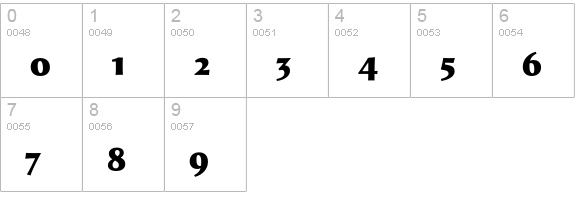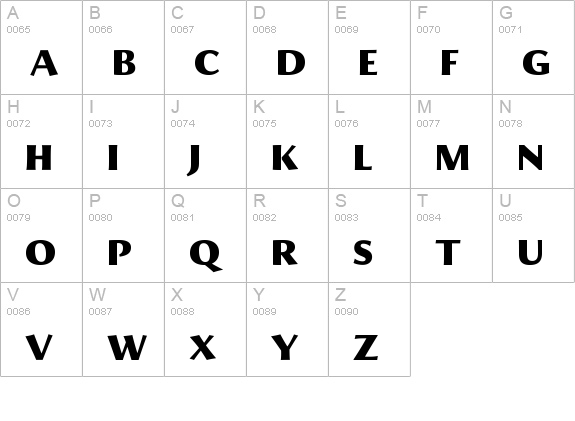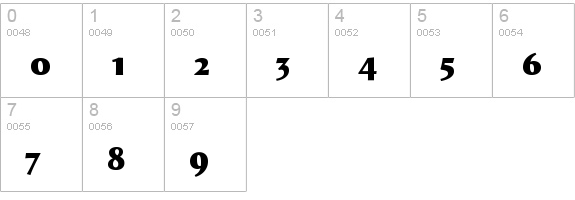
ShellSansExpert-Black Font Details
ShellSansExpert-Black is a maximum-weight, dramatic variant in the ShellSansExpert typeface family \xE2\x80\x94 well suited to maximum-impact headlines, posters, and packaging.
ShellSansExpert-Black is a stunning and versatile font that exudes confidence and sophistication. Its bold and powerful letterforms are perfect for making a bold statement in any design project. This font is meticulously crafted with attention to detail, resulting in a highly legible and visually appealing typeface. With its sleek and modern appearance, ShellSansExpert-Black is suitable for a wide range of applications, from headlines and titles to branding and advertising materials. Its strong presence on the page demands attention and ensures that your message is delivered with impact. One of the most remarkable aspects of ShellSansExpert-Black is that it is available to download for free at FontsMarket.com. This means that you have the opportunity to enhance your designs with this exceptional font without any cost. Its availability for free download makes it accessible to designers and creatives of all backgrounds, regardless of their budget. Whether you are working on a professional project or a personal endeavor, ShellSansExpert-Black will certainly elevate your design to new heights. It is a font that commands attention, leaving a lasting impression on your audience. Don't miss out on the opportunity to enhance your design with this remarkable typeface. Download ShellSansExpert-Black for free at FontsMarket.com and unlock its full potential today.